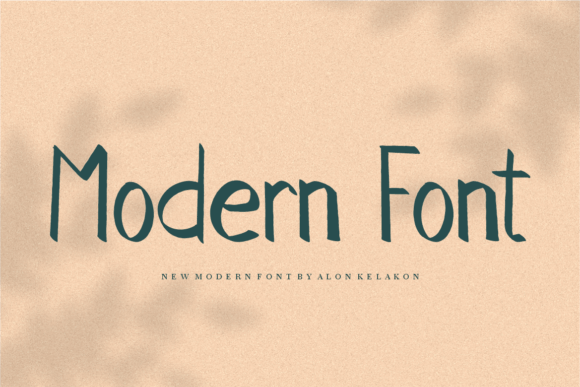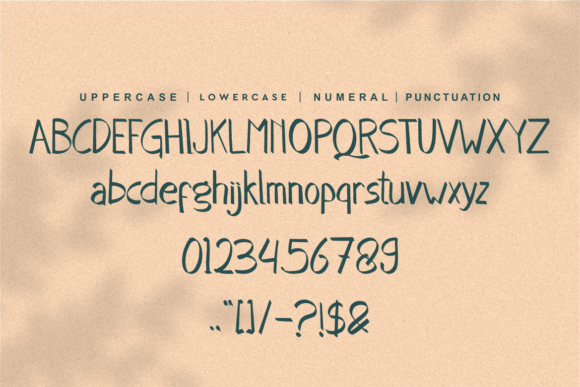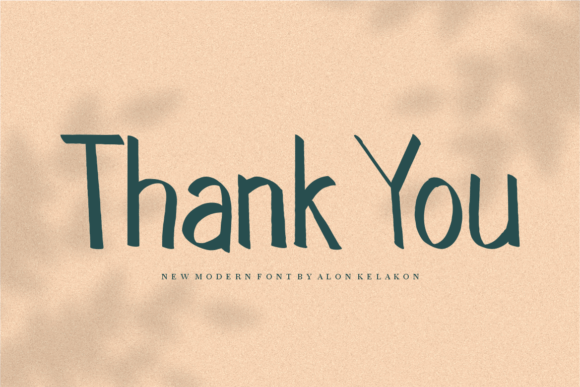
The Queenofer Font
About The Queenofer Font
“The Queenofer Font” is more than just a font; it’s a fun and friendly handwritten typeface crafted to inject a playful and inviting charm into your designs. Whether you’re looking to add a touch of whimsy to your projects or want to create designs that stand out with a unique charm, this font is the perfect choice to turn your design ideas into true standouts.
The fun and friendly handwritten style of “The Queenofer Font” is a standout feature. The characters are designed with a playful and approachable quality, making it suitable for a wide range of creative applications. This font adds a touch of lightheartedness to your text, making it perfect for projects that aim to create a friendly and enjoyable atmosphere.
The unique charm of “The Queenofer Font” sets it apart and serves as a great source of inspiration for creative endeavors. Whether used for branding, social media posts, or any design that requires a distinctive touch, this font becomes a valuable tool to infuse your projects with character and charm.
Creating lovely designs with “The Queenofer Font” is an exciting and enjoyable process. The font’s unique charm encourages experimentation and creativity, allowing you to explore different design possibilities. Its friendly demeanor ensures that it resonates well with audiences looking for designs that are approachable and delightful.
In summary, “The Queenofer Font” is more than just a font; it’s a fun and friendly handwritten typeface that adds a unique charm to your designs. Use it to turn any design idea into a true standout, and let its playful and inviting qualities inspire you to create lovely and delightful designs.